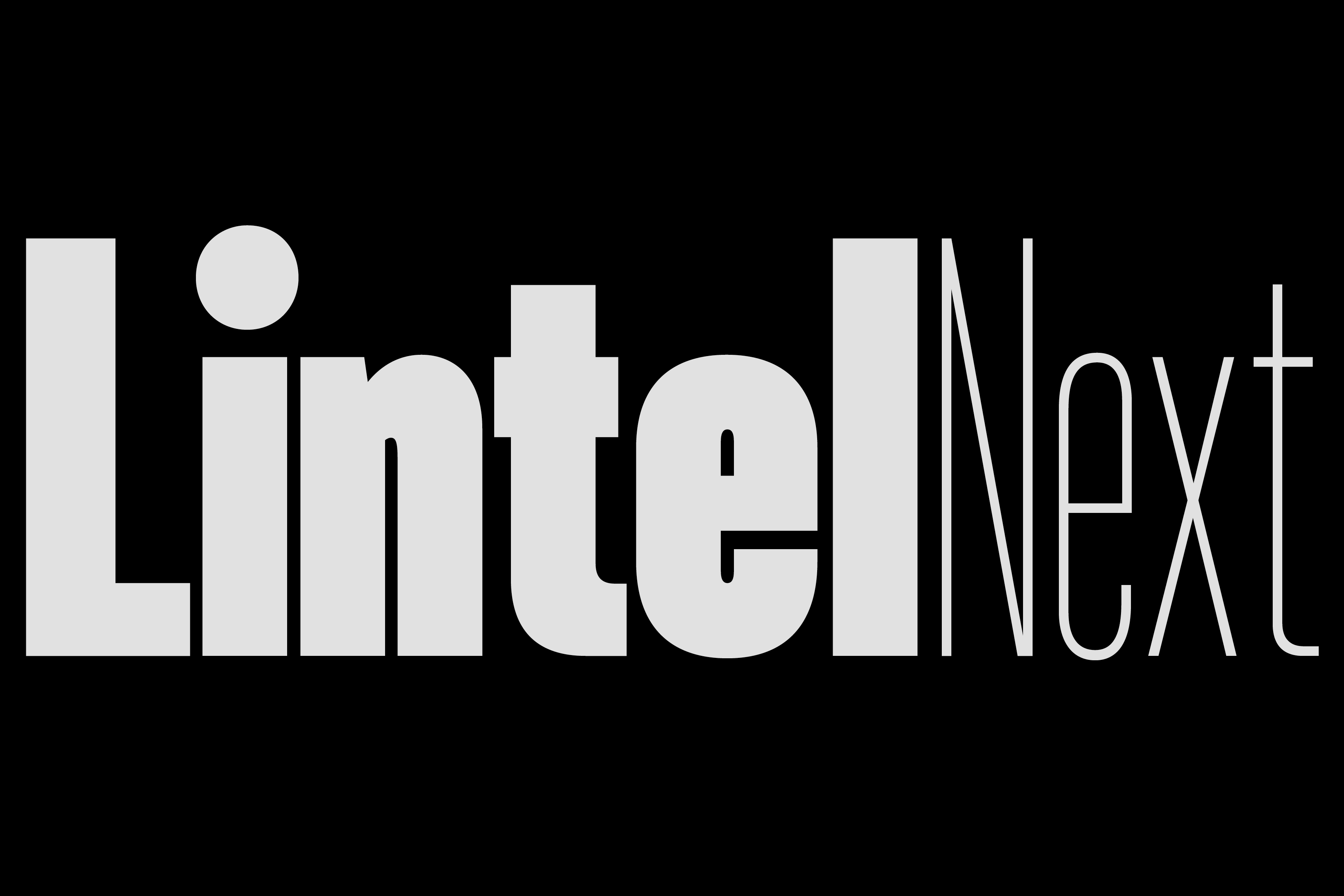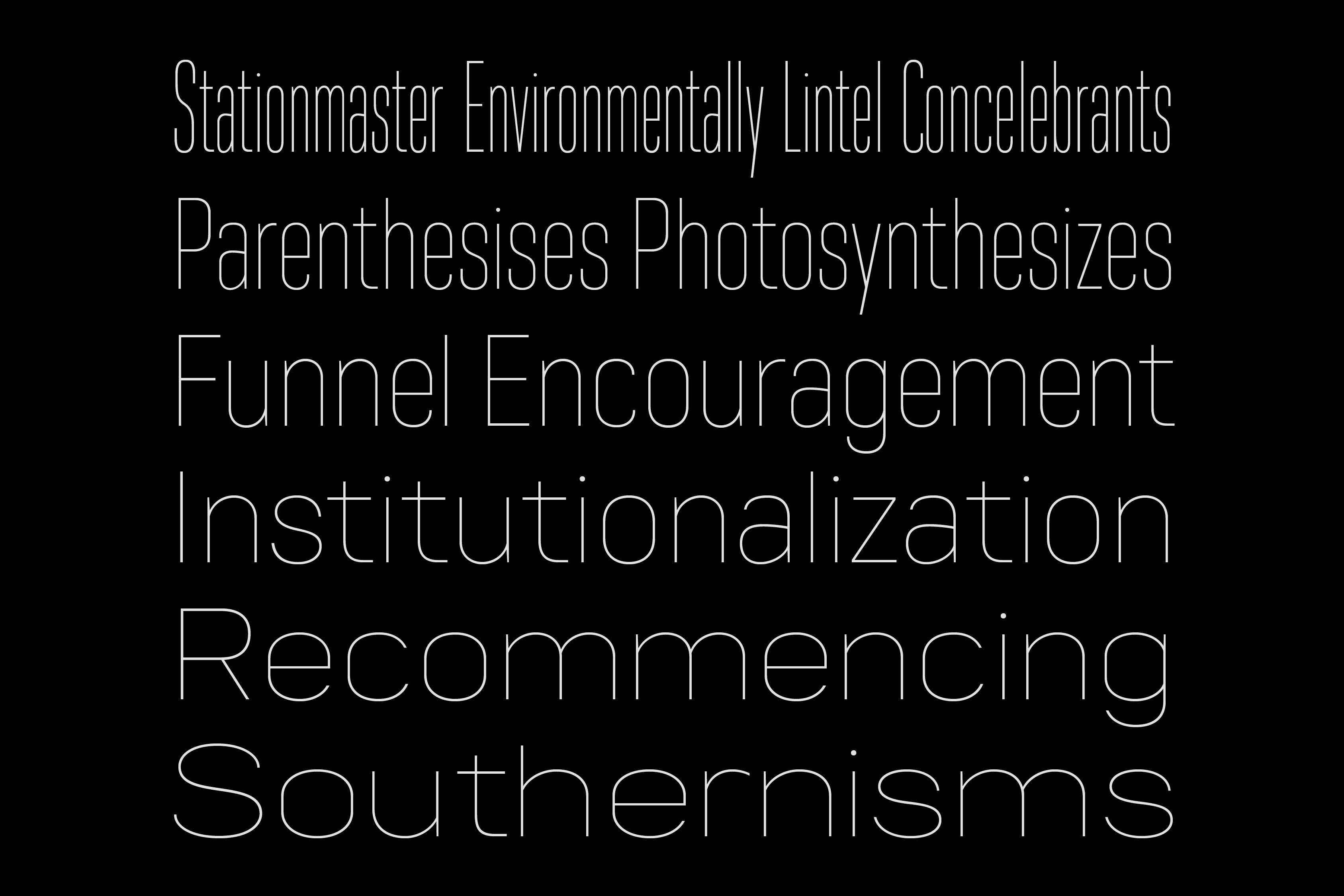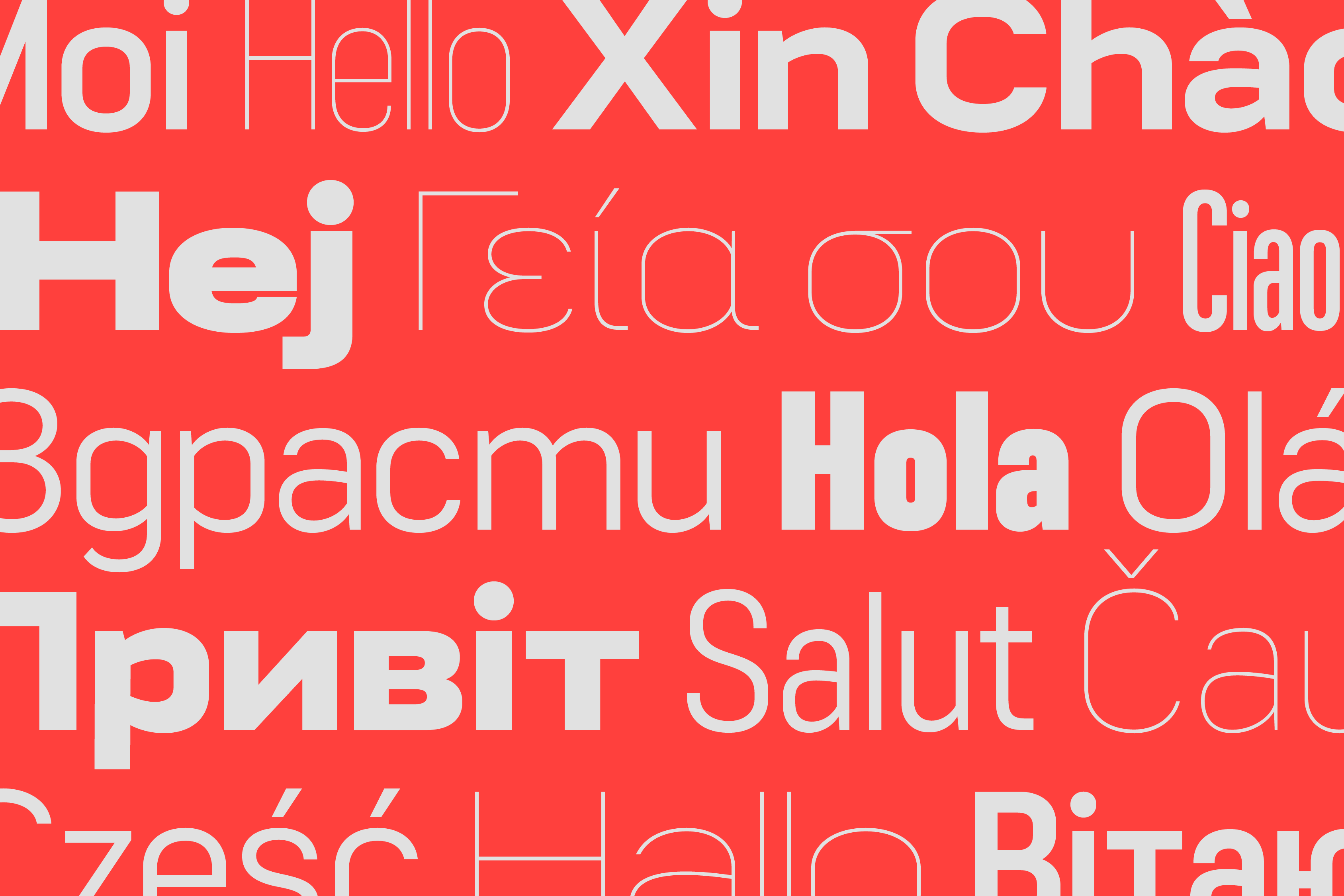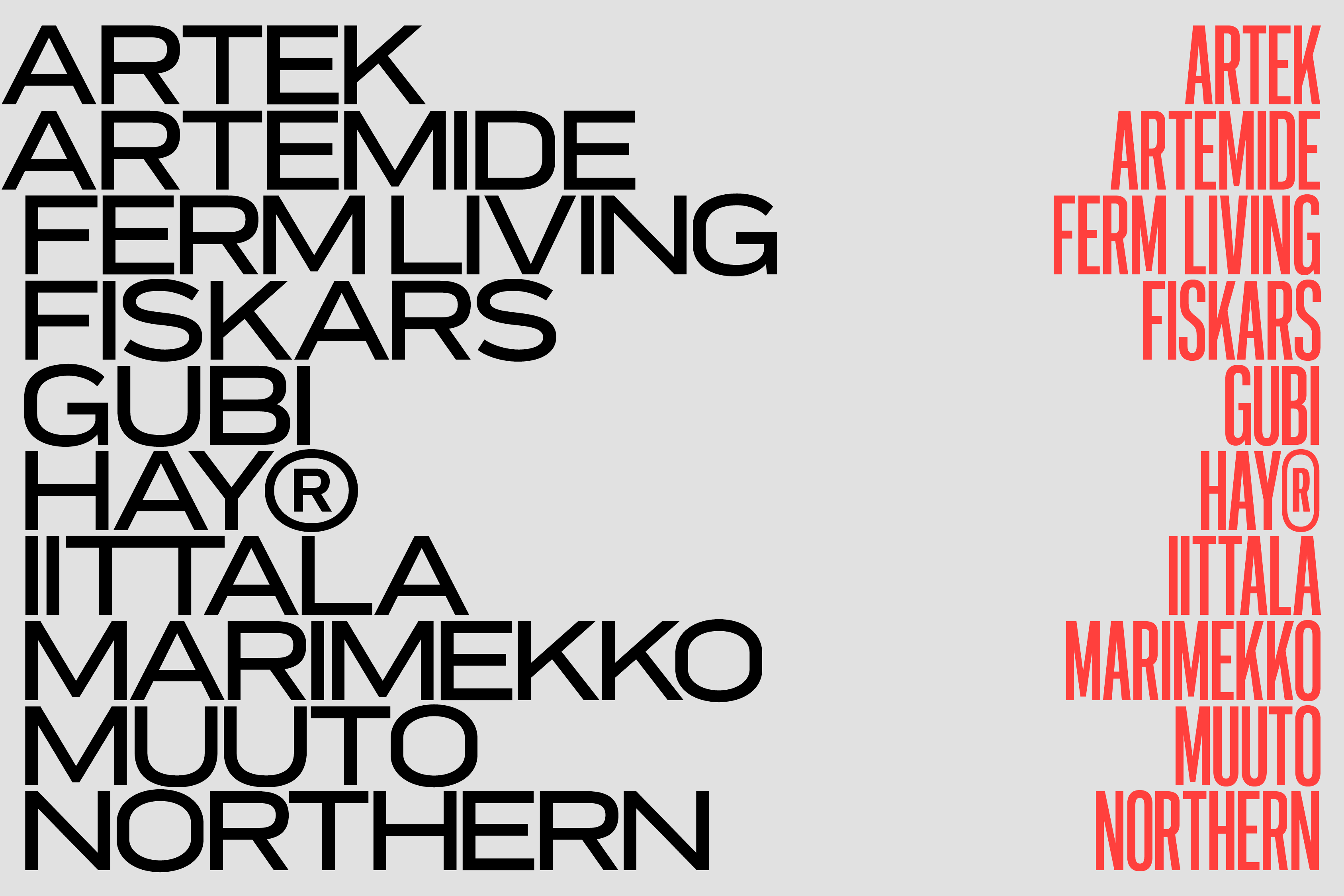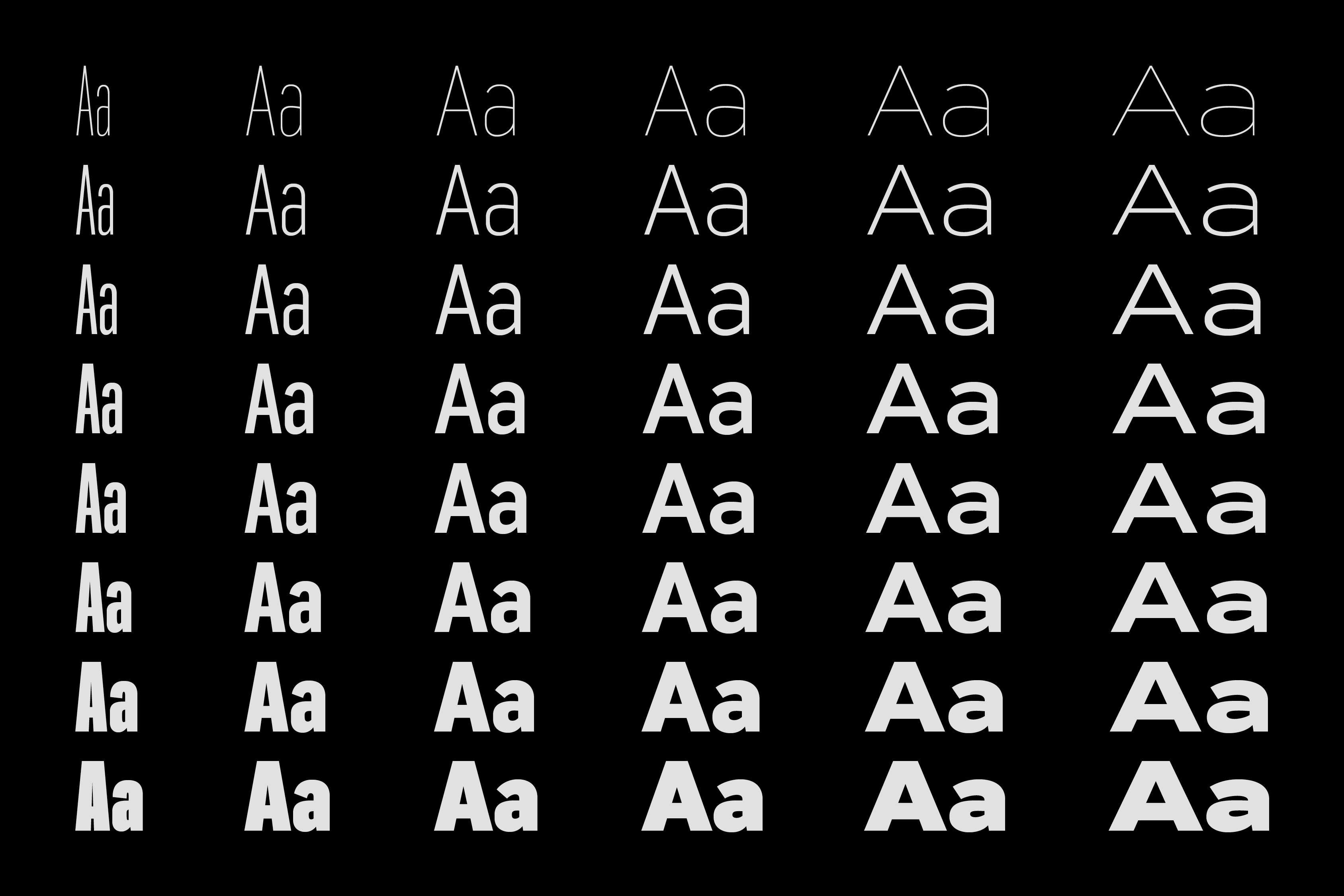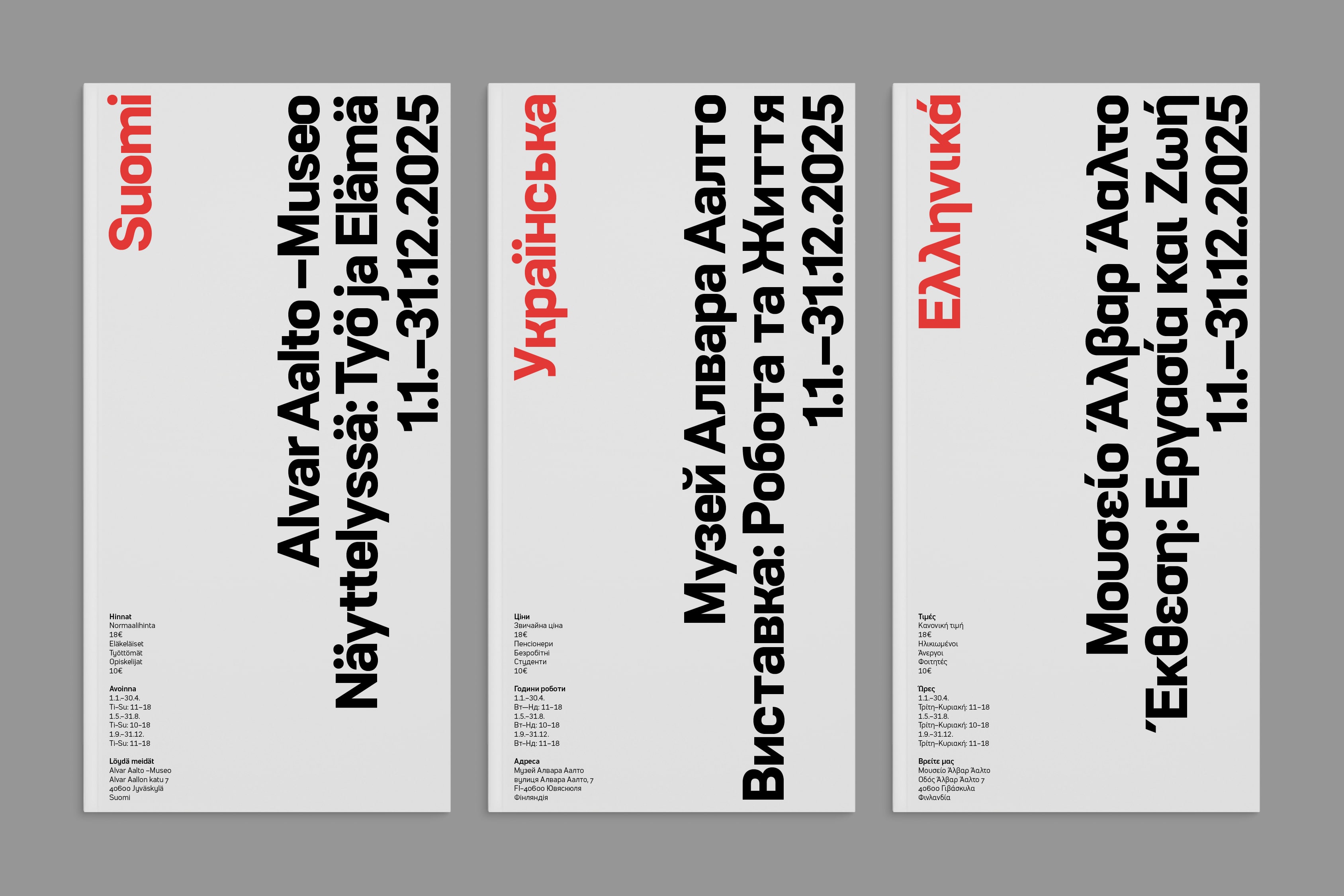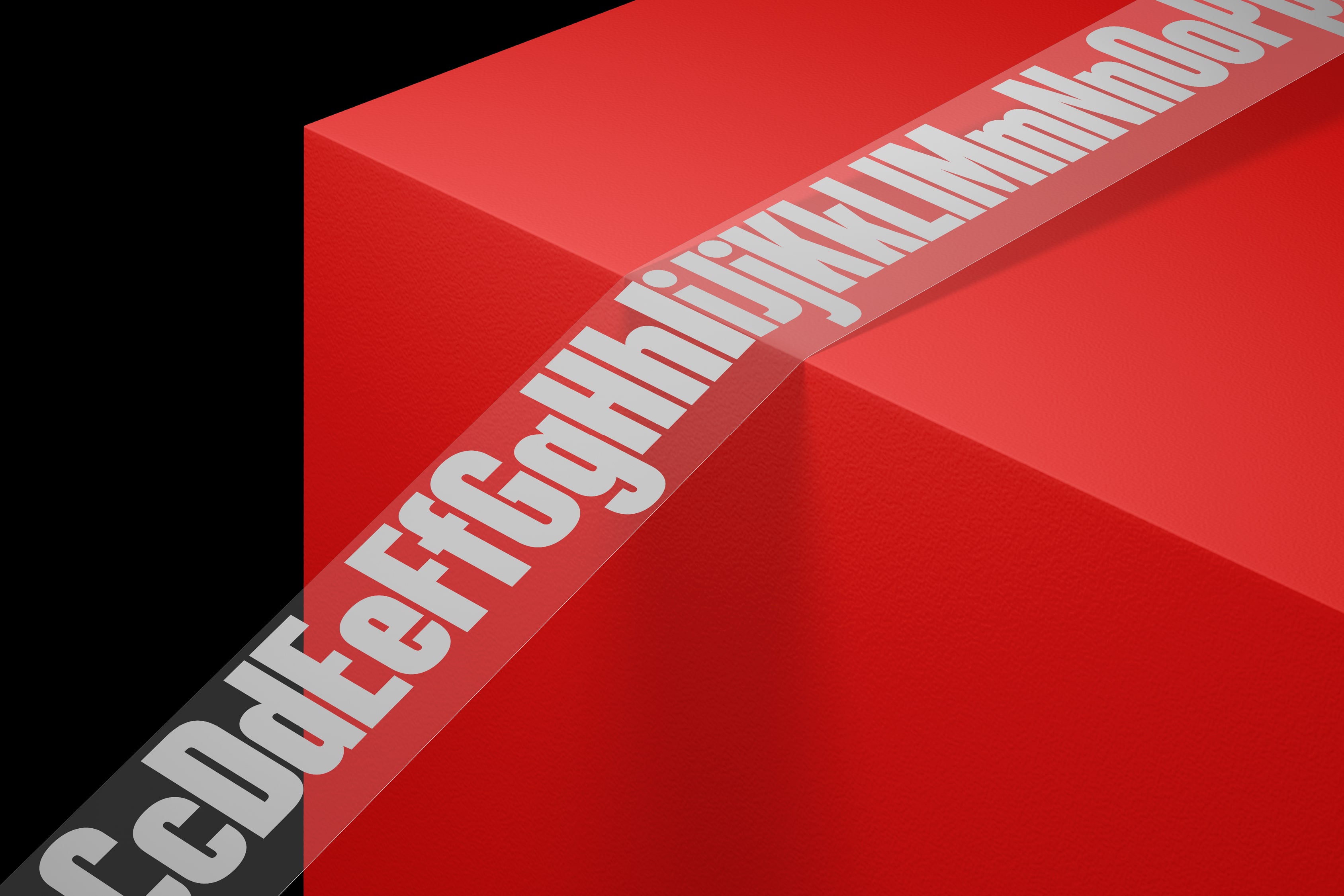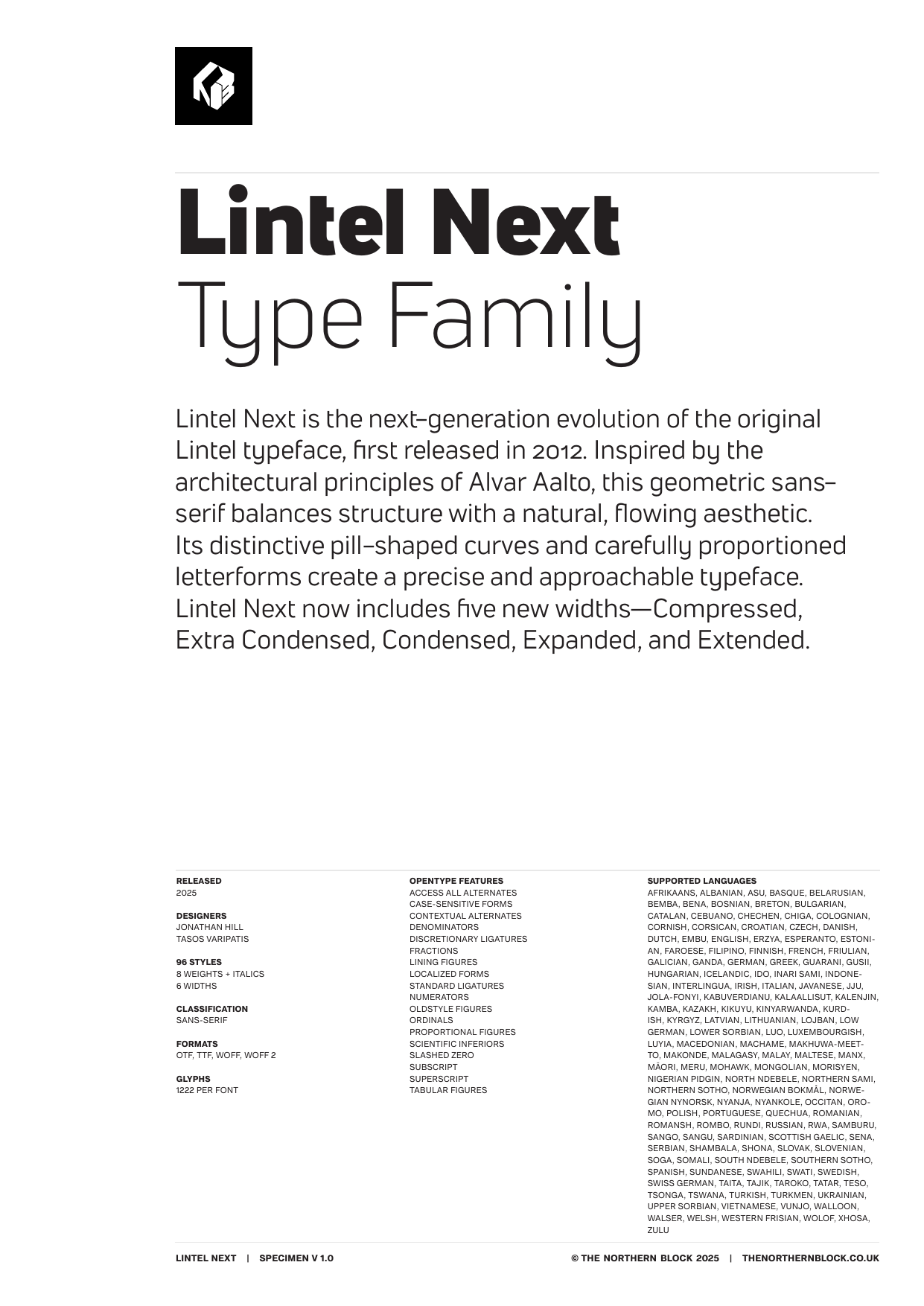
Lintel Next Collection
Lintel Next
Extended Thin Italic Extended Light Italic Extended Book Italic Extended Regular Extended Italic Extended Medium Italic Extended Bold Italic Extended ExtraBold Italic Extended Black ItalicLintel Next is the next-generation evolution of the original Lintel typeface, first released in 2012. Inspired by the architectural principles of Alvar Aalto, this geometric sans-serif balances structure with a natural, flowing aesthetic. Its distinctive pill-shaped curves and carefully proportioned letterforms create a precise and approachable typeface.
Expanded for greater versatility, Lintel Next now includes five new widths—Compressed, Extra Condensed, Expanded, and Extended—allowing seamless adaptability across different design applications. Every character has been redrawn for improved consistency and enhanced readability, ensuring a refined typographic experience.
This latest update was led by Tasos Varipatis, whose hand-drawn approach softens the geometric rigidity found in similar sans-serifs, giving Lintel Next a unique warmth. His refinements also introduce Greek and Vietnamese language support, making the typeface more globally accessible.
With 1222 characters per style, Lintel Next offers extensive OpenType features and broad language support covering Western, Southern, and Central Europe, Cyrillic, Greek, and Vietnamese. Whether used for branding, editorial, or UI design, Lintel Next delivers a contemporary balance of technical precision and human-centred design.